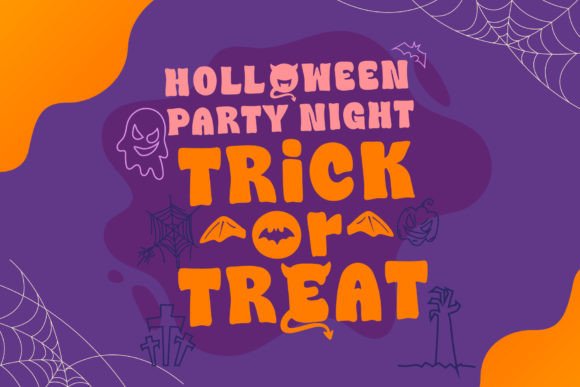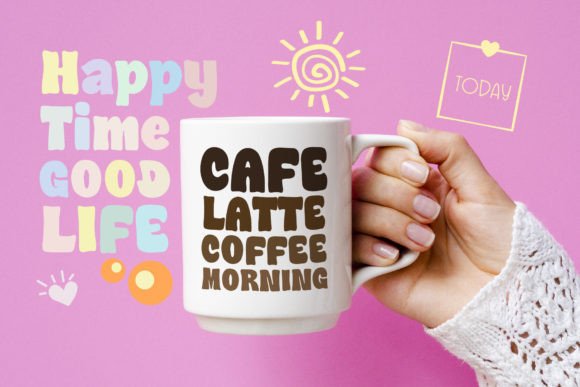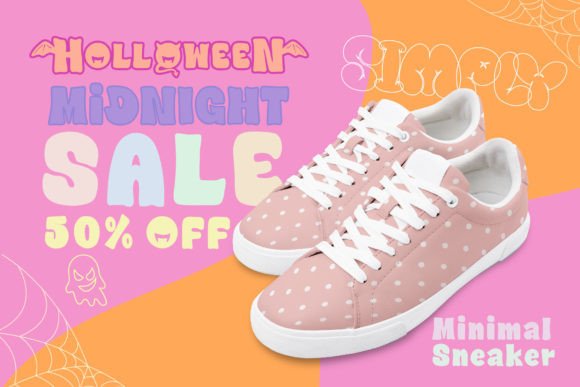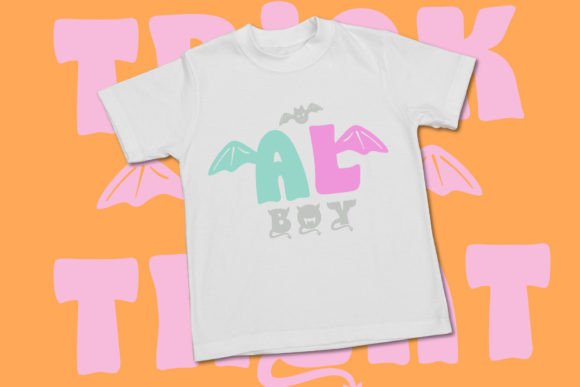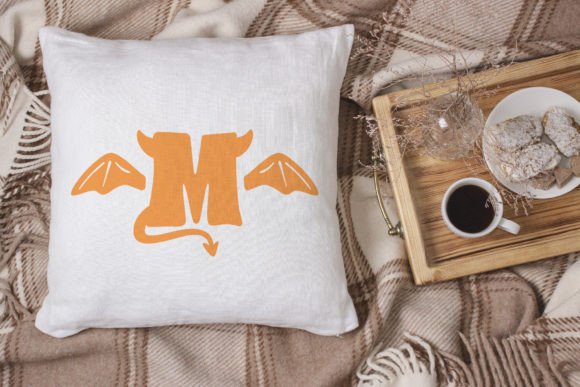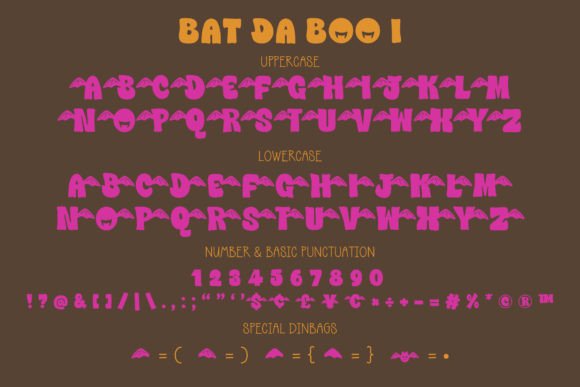
Bat Dah Boo Font: Add a Touch of Whimsical Delight to Your Designs
Are you looking for a font that can add a playful and festive touch to your designs? Look no further than Bat Dah Boo, a Halloween-inspired display and decorative font that’s sure to bring a smile to your face. In this article, we’ll introduce you to the charming world of Bat Dah Boo and explore how this delightful font can elevate your creative projects.
What is Bat Dah Boo Font?
Bat Dah Boo is a unique and captivating font that’s specifically designed to bring a sense of whimsical delight to your designs. With its playful and festive vibe, this font is perfect for Halloween-themed projects, but its versatility means it can be used in a variety of creative contexts. Whether you’re a designer, crafter, or DIY enthusiast, Bat Dah Boo is sure to inspire your imagination and add a touch of magic to your work.
The Characteristics of Bat Dah Boo Font
So, what makes Bat Dah Boo font so special? Here are some of its key characteristics:
- Playful and whimsical: Bat Dah Boo is a font that’s full of personality and charm. Its playful curves and lines are sure to bring a smile to your face and add a touch of whimsy to your designs.
- Halloween-inspired: While Bat Dah Boo is perfect for Halloween-themed projects, its festive vibe can be used in a variety of contexts, from party invitations to seasonal decorations.
- Display and decorative: Bat Dah Boo is a display and decorative font that’s designed to make a statement. Use it to add a touch of drama and flair to your designs.
- Unique and standout: With its distinctive style and playful charm, Bat Dah Boo is a font that’s sure to stand out from the crowd and make your designs shine.
How to Use Bat Dah Boo Font in Your Designs
So, how can you use Bat Dah Boo font in your designs? Here are some ideas to get you started:
- Halloween-themed projects: Use Bat Dah Boo to create spooky-fun invitations, party decorations, and other Halloween-themed projects.
- Seasonal crafts: Add a touch of festive flair to your seasonal crafts, such as holiday cards, gift tags, and decorations.
- Playful posters and signs: Use Bat Dah Boo to create eye-catching posters and signs that are sure to grab attention.
- Whimsical branding: Add a touch of whimsy to your brand’s identity with Bat Dah Boo font. Use it to create a playful logo, business card, or packaging design.
Tips for Working with Bat Dah Boo Font
Here are some tips for working with Bat Dah Boo font:
- Experiment with different sizes and colors: Bat Dah Boo font looks great in a variety of sizes and colors. Experiment with different combinations to find the one that works best for your design.
- Pair it with other fonts: Bat Dah Boo font pairs well with a variety of other fonts. Try pairing it with a bold sans-serif font for a fun and playful contrast.
- Use it sparingly: While Bat Dah Boo font is playful and fun, it can be overwhelming if used too much. Use it sparingly to add a touch of whimsy to your designs.
In conclusion, Bat Dah Boo font is a playful and festive font that’s sure to bring a touch of whimsical delight to your designs. With its unique characteristics, versatility, and standout quality, this font is perfect for designers, crafters, and DIY enthusiasts who want to add a touch of magic to their creative projects. So why not give Bat Dah Boo font a try and see how it can elevate your designs?
Get Ready to Elevate Your Designs with Bat Dah Boo Font
Introducing Bat Dah Boo – a playful, Halloween-inspired display and decorative font. Crafted with a sense of whimsical delight, Bat Dah Boo infuses an irresistibly joyful spark into your design work. In every creative concept, let Bat Dah Boo take center stage to truly elevate it – let your ideas shine with a unique standout quality that only this charmingly festive font can deliver.